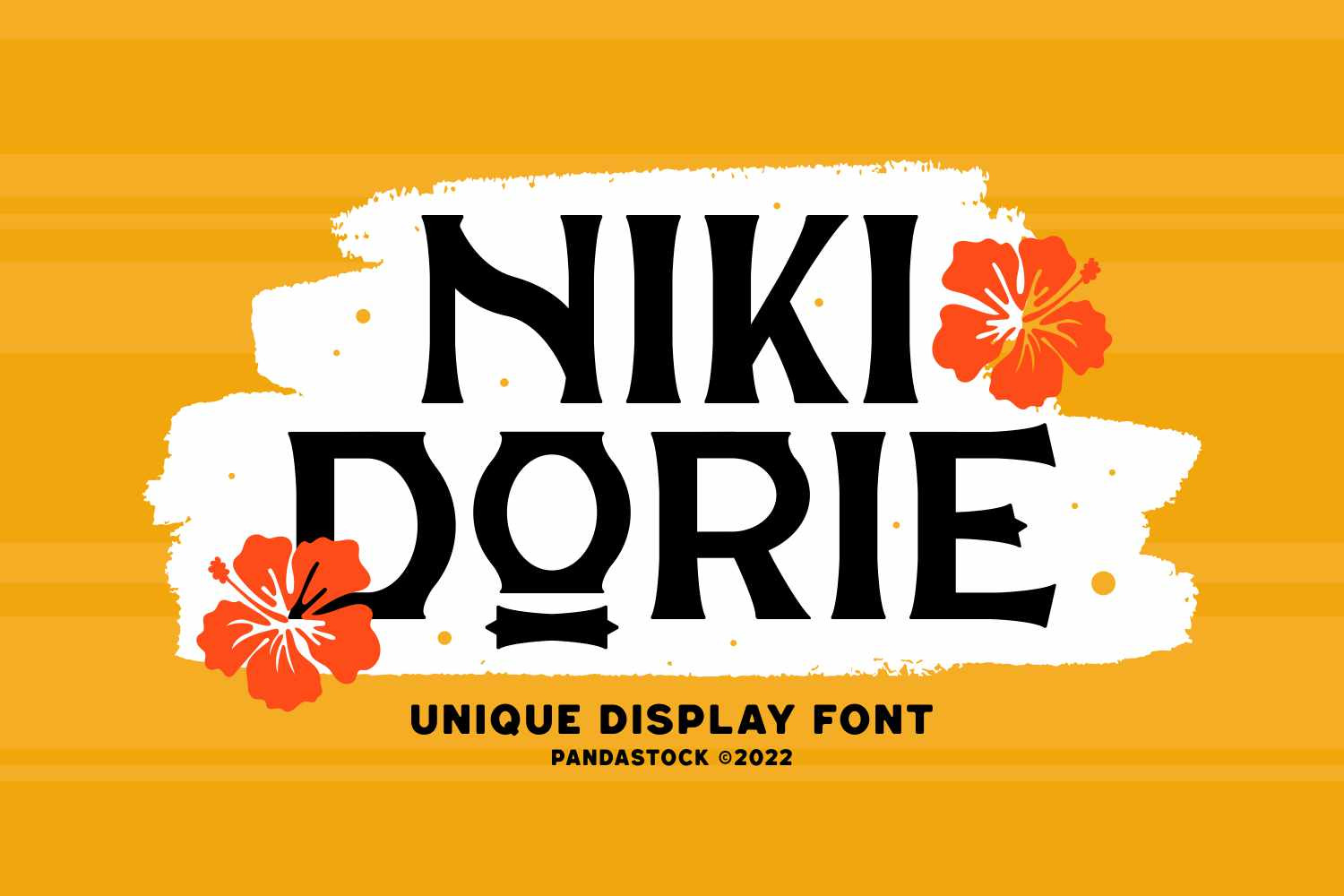
Niki Dorie - Tropical Serif Typeface
Niki Dorie is a tropical display serif typeface with a tiki feel, combining sharp, hand carved letterforms with geometric, slightly irregular curves. Each letter features distinctive serifs with stylized "woodcut" shapes, creating a handmade feel, complemented by unique ornamental crossbars reminiscent of tiki masks and beach signs.
Whether you're designing for Hawaii, a beach cafe, a tropical drink label, or summer event marketing, Niki Dorie brings the playful, adventurous, and sun-drenched feel your project needs. Perfect for summer branding, beverage packaging, surf shop logos, travel posters, and tropical-themed merchandise, this typeface captures the warmth of the sun, the rhythm of the waves, and the joy of island life.